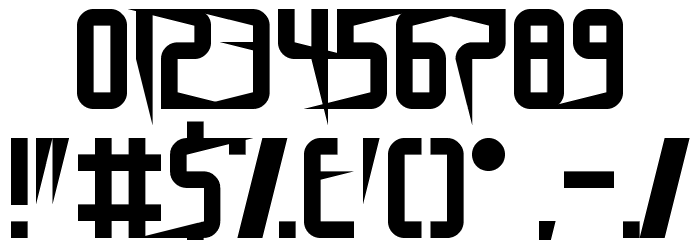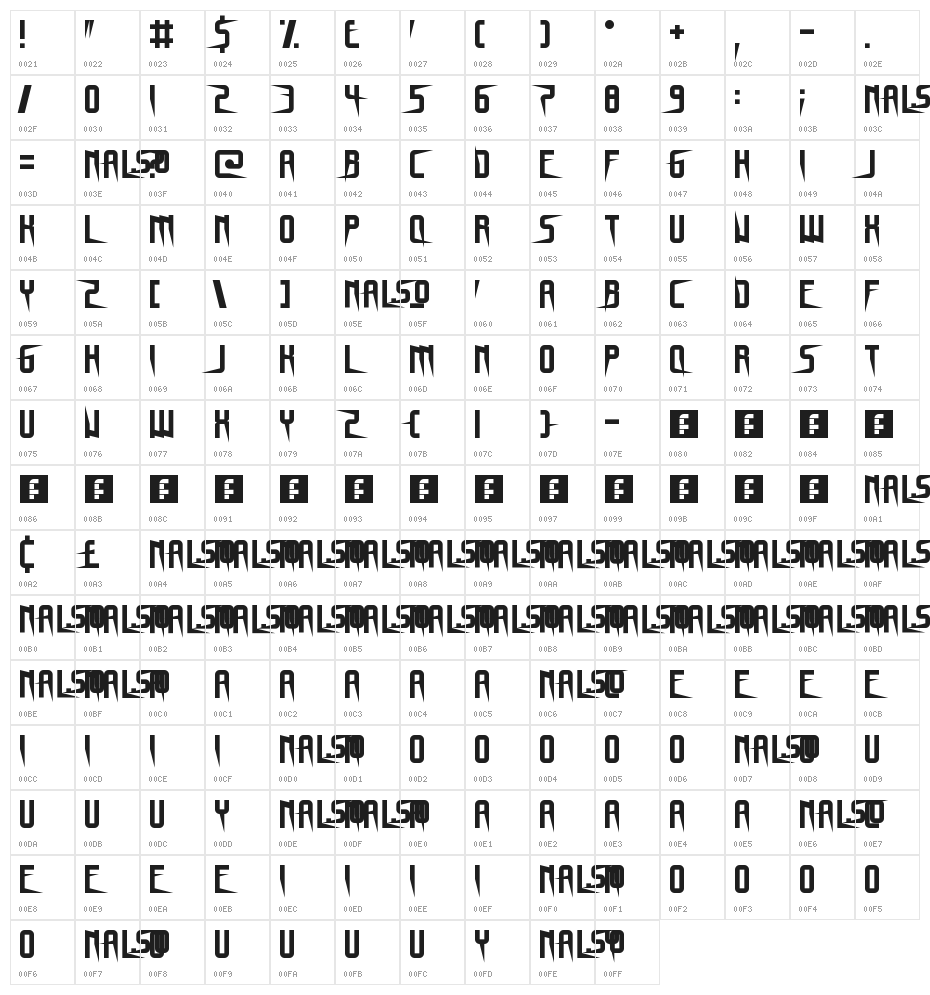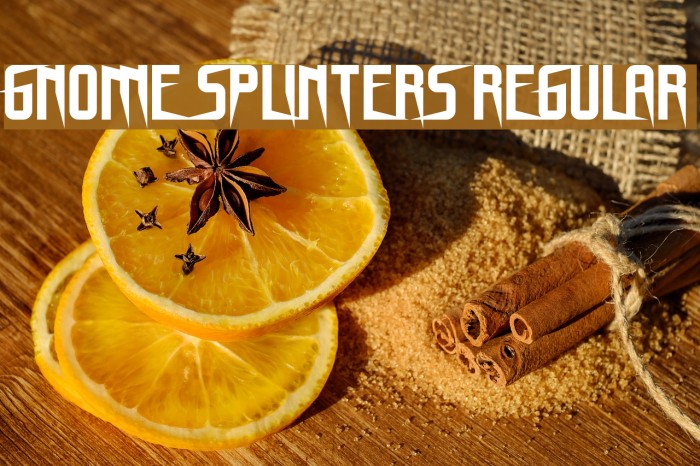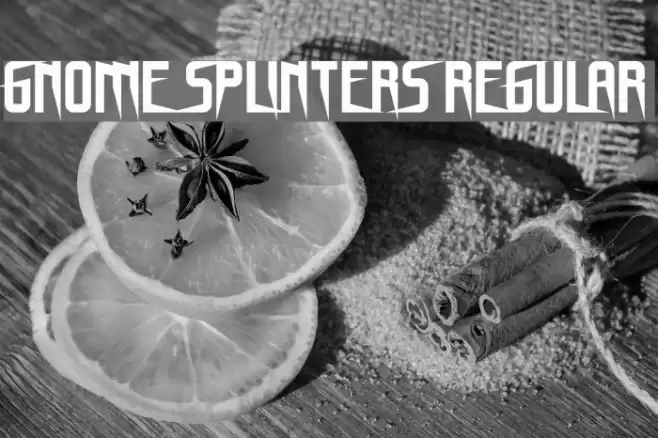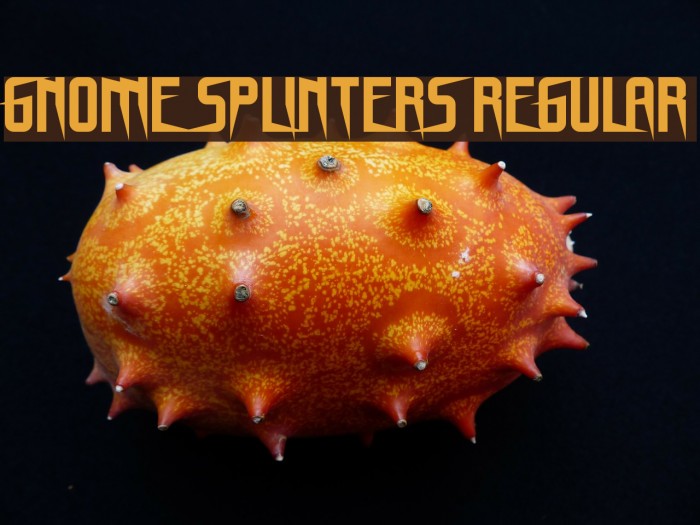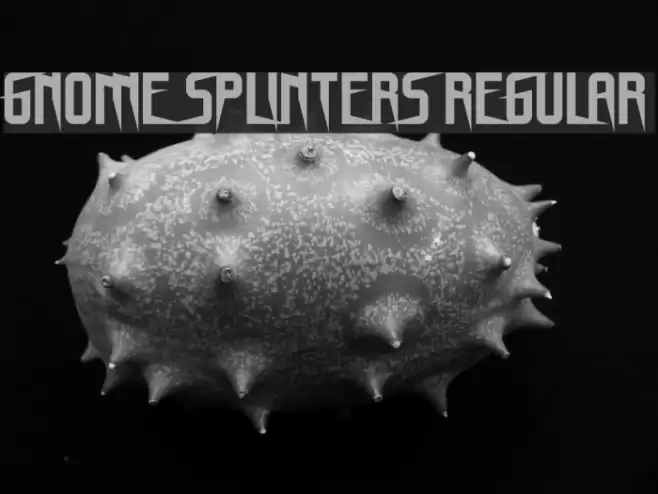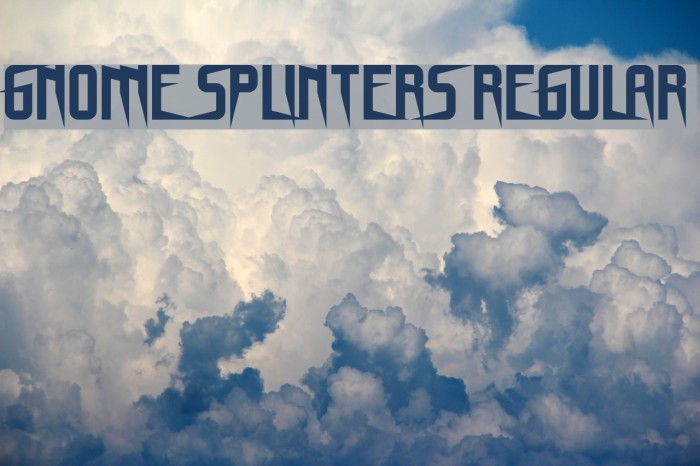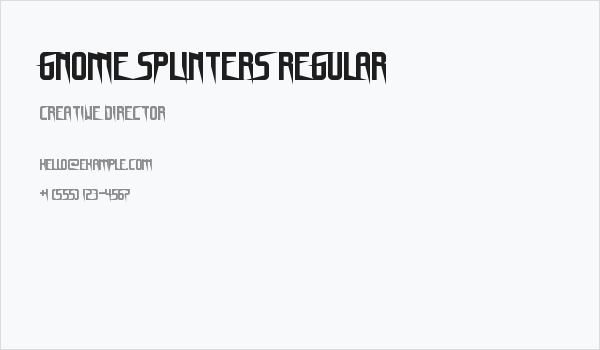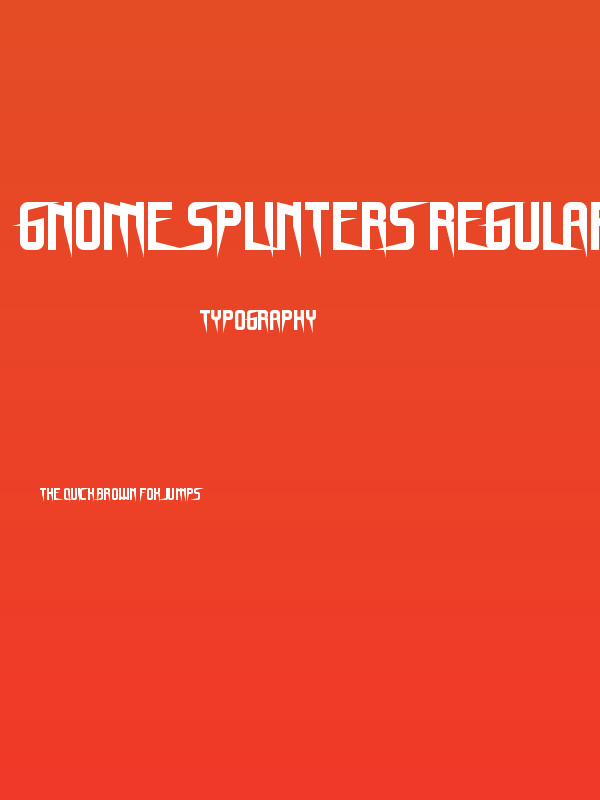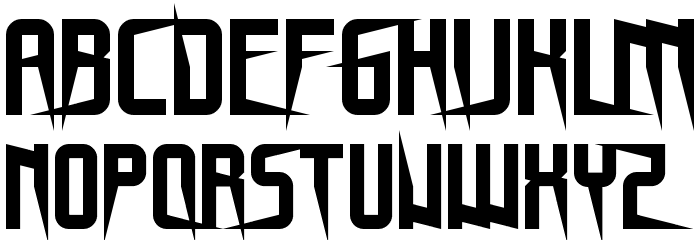
Gnome Splinters Regular Font
Gnome Splinters Regular Description
This font features a bold and edgy design with sharp, angular lines that give it a splintered appearance. The characters are uniquely styled with pointed edges and irregular shapes, creating a dynamic and aggressive look. The uppercase and lowercase letters maintain a consistent style, while the numbers and special characters complement the overall aesthetic. This font's distinctive design makes it stand out, ideal for projects that require a strong visual impact.
| Proposed Projects | Ideal for music album covers, video game titles, posters, and branding that requires a bold, edgy look. |